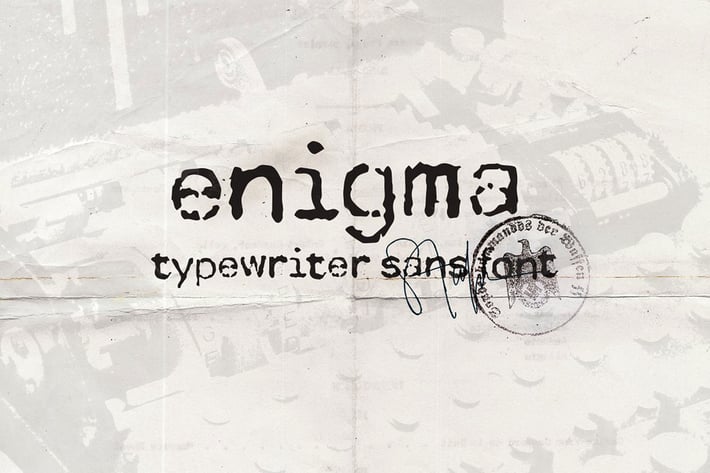
Enigma Typewriter Sans Font
Enigma Typewriter is a font that helps you to recreate old documents and papers. I created this font inspired by Enigma German machine.